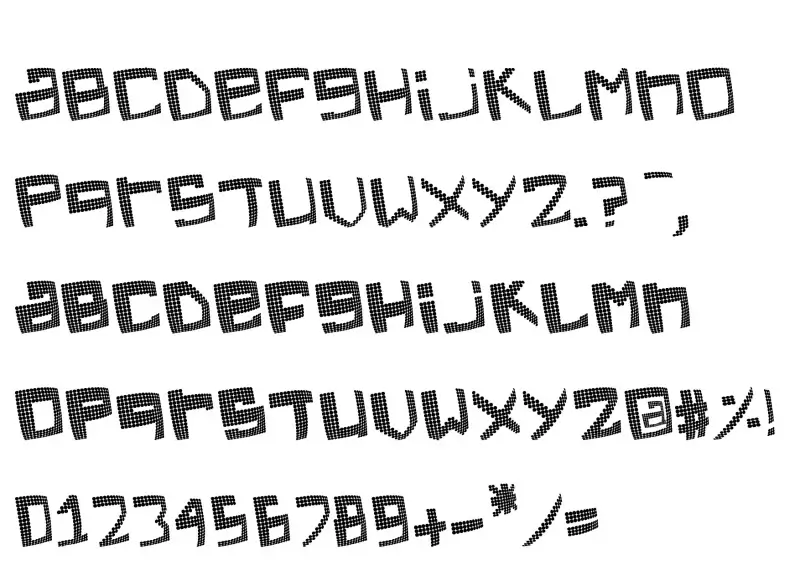
Electric Toaster Font . Click now to create a. The font contains characters from the following unicode character ranges: Download and install the electric toaster font for free from ffonts.net. Free download of electric toaster font. ️ this font has been downloaded 2,000+ times. 86,248 downloads (5 yesterday) 6 comments. Electric toaster is a techno type font that can be used on any device such as pc, mac, linux, ios and android. Download electric toaster font free! Thousands of designers (famous or not) use the image font detection system to find a font or similar free fonts from an image. Electric toaster font contains 67 defined characters and 39 unique glyphs. This font has 1 variant available. Basic latin (69), cyrillic (1).
Download and install the electric toaster font for free from ffonts.net. ️ this font has been downloaded 2,000+ times. Click now to create a. The font contains characters from the following unicode character ranges: Thousands of designers (famous or not) use the image font detection system to find a font or similar free fonts from an image. Download electric toaster font free! This font has 1 variant available. Free download of electric toaster font. Electric toaster font contains 67 defined characters and 39 unique glyphs. 86,248 downloads (5 yesterday) 6 comments.
Electric Toaster Font Electric toaster font contains 67 defined characters and 39 unique glyphs. Click now to create a. 86,248 downloads (5 yesterday) 6 comments. Thousands of designers (famous or not) use the image font detection system to find a font or similar free fonts from an image. This font has 1 variant available. Download and install the electric toaster font for free from ffonts.net. ️ this font has been downloaded 2,000+ times. Electric toaster is a techno type font that can be used on any device such as pc, mac, linux, ios and android. The font contains characters from the following unicode character ranges: Basic latin (69), cyrillic (1). Download electric toaster font free! Free download of electric toaster font. Electric toaster font contains 67 defined characters and 39 unique glyphs.